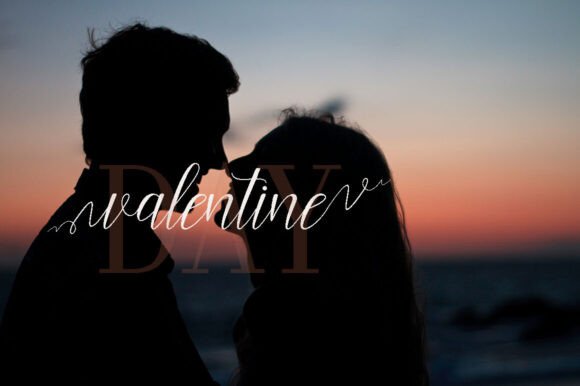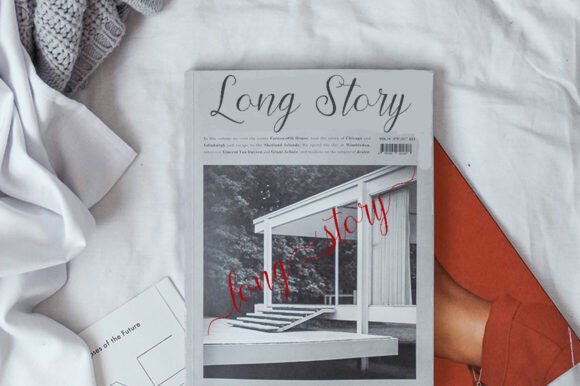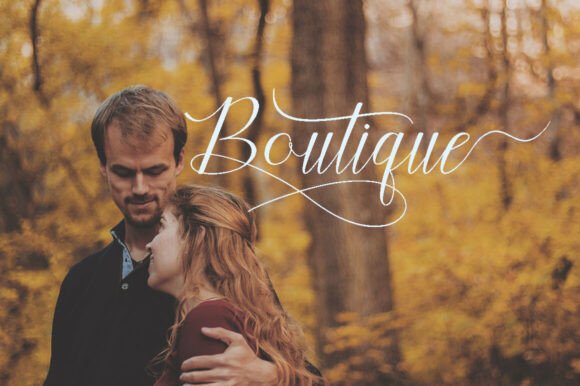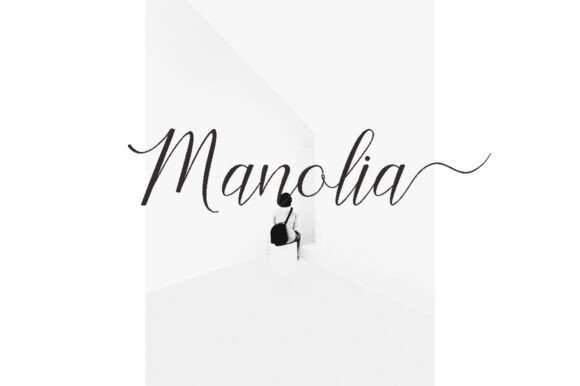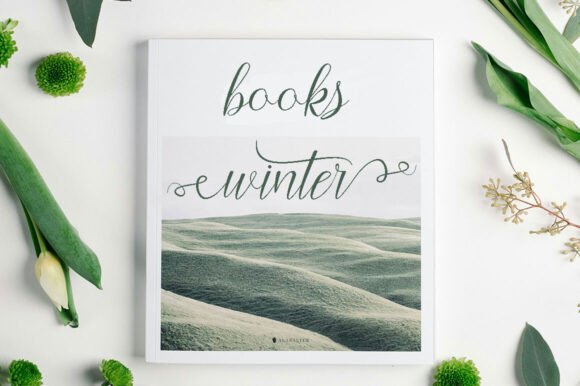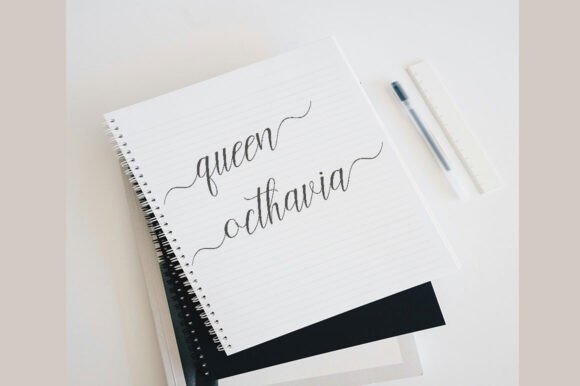
Discover the Elegance of Benhathan Font: A Perfect Blend of Modern and Feminine Styles
In the world of typography, fonts play a crucial role in conveying the message and aesthetic of a design. For designers and crafters looking for a font that combines modern elegance with a feminine touch, Benhathan Font is an excellent choice. This beautifully crafted font is versatile, making it suitable for a wide range of design needs, from logos and branding to wedding designs, social media posts, and more.
The Unique Characteristics of Benhathan Font
Benhathan Font stands out due to its unique blend of modern and elegant styles. It maintains a feminine and graceful feel, which is hard to find in many contemporary fonts. The handcrafted style of Benhathan Font gives it a personal touch, making it ideal for designs that require a bespoke look. Whether you’re working on a logo, invitation, or product packaging, this font adds a touch of sophistication and charm.
One of the key advantages of Benhathan Font is its versatility. It can be used across various design projects, including:
- Logos and Branding: Create a lasting impression with a unique and elegant logo that captures the essence of your brand.
- Invitations and Stationery: Add a touch of elegance to your invitations, cards, and stationery.
- Wedding Designs: Make your wedding designs, such as wedding cards and invitations, truly special with this beautiful font.
- Social Media and Advertisements: Stand out on social media and in advertisements with eye-catching text that exudes elegance.
- Printed Quotes and Product Packaging: Give your quotes and product packaging a sophisticated look that appeals to your audience.
- Labels and Photography: Use Benhathan Font for labels and watermarks in your photography to add a professional touch.
- Special Events and Magazine Layouts: Create stunning layouts for special events and magazines that capture the reader’s attention.
Why Choose Benhathan Font?
Benhathan Font is not just another font; it’s a design solution that offers:
- Elegance and Sophistication: It brings an air of elegance and sophistication to your designs.
- Feminine Touch: The font’s feminine and graceful feel makes it perfect for designs targeting a female audience or for adding a soft touch to any design.
- Readability: Despite its elegant and modern style, Benhathan Font maintains high readability, making it suitable for both headings and body text.
- Customization: Being handcrafted, it allows for a degree of customization that can make your design truly unique.
Tips for Using Benhathan Font
To make the most out of Benhathan Font, consider the following tips:
- Pair it with Complementary Fonts: For a harmonious design, pair Benhathan Font with fonts that complement its style without overpowering it.
- Adjust Letter Spacing: For headings, slightly increasing letter spacing can enhance the elegant feel of the font.
- Experiment with Colors: While the font itself is elegant, experimenting with different colors can help match it to your brand’s palette or design theme.
Benhathan Font is a versatile and elegant font that can elevate your designs to a new level of sophistication. Its unique blend of modern and feminine styles, along with its handcrafted look, makes it a perfect choice for a wide range of design projects. Whether you’re a designer or a crafter, incorporating Benhathan Font into your work can add a touch of grace and elegance that sets your designs apart.